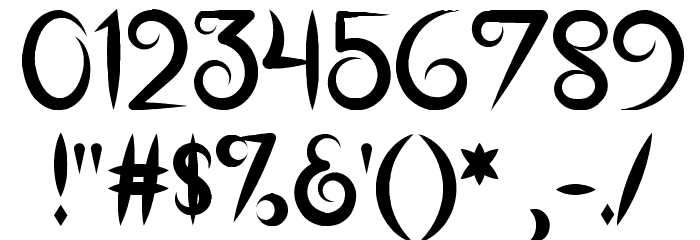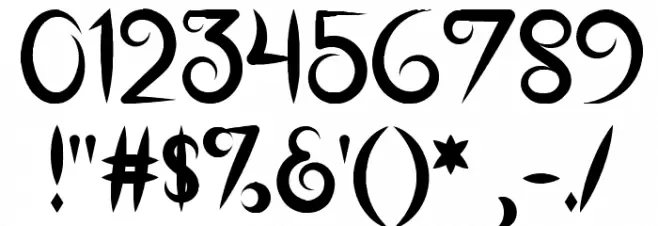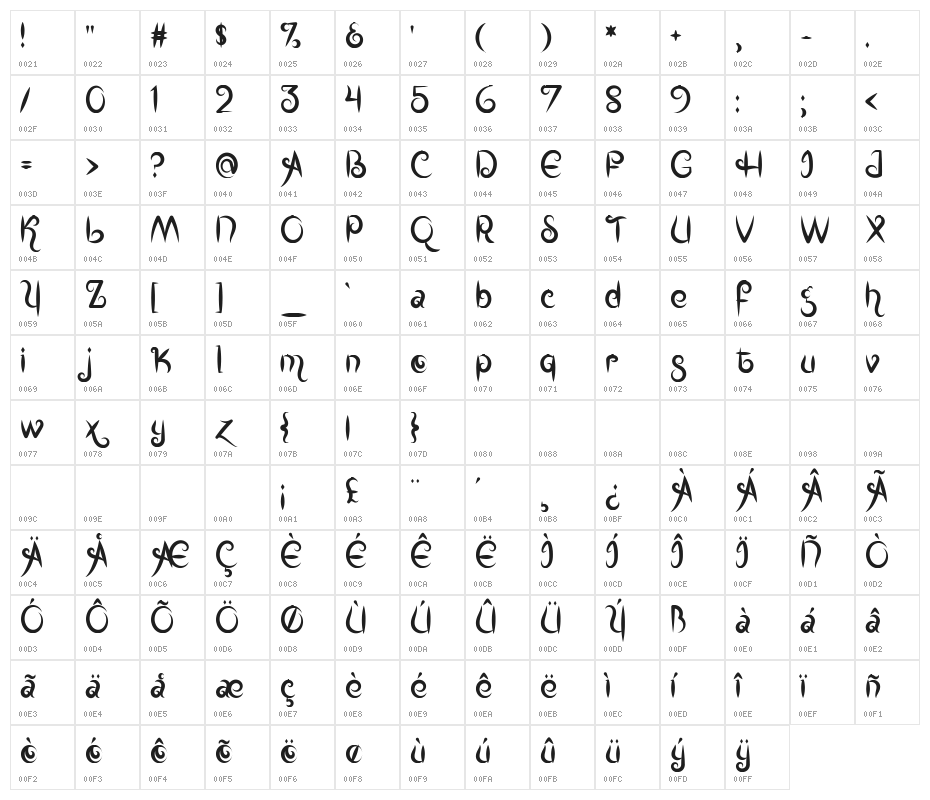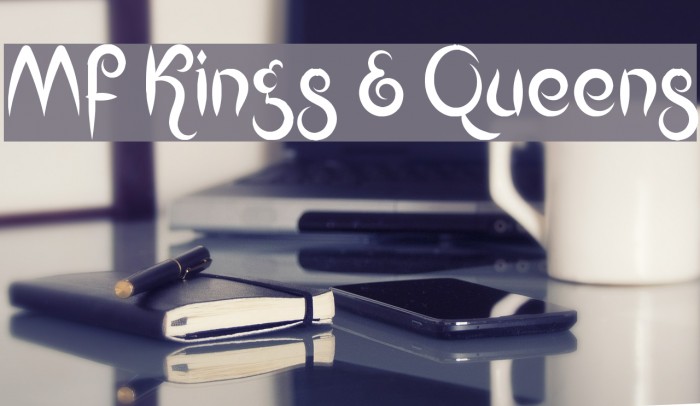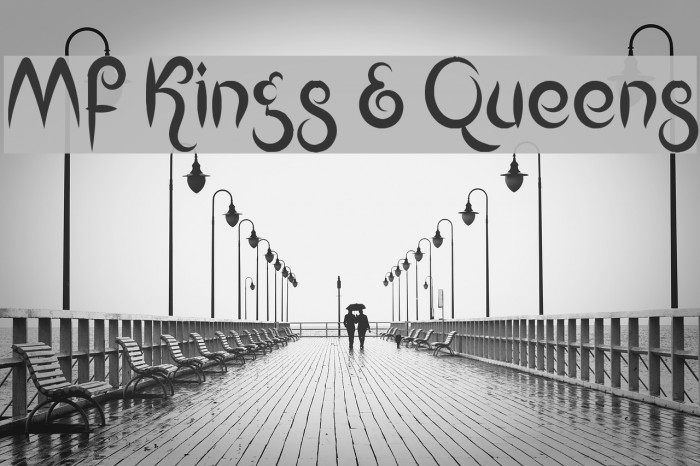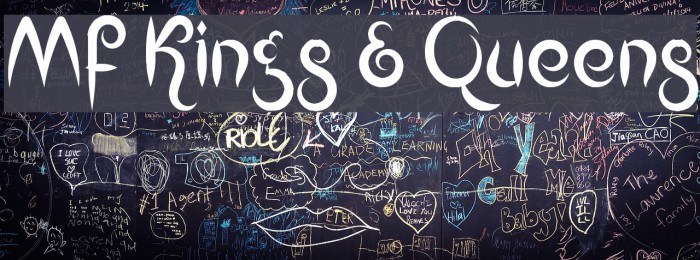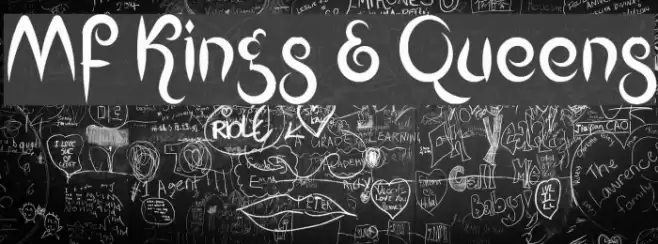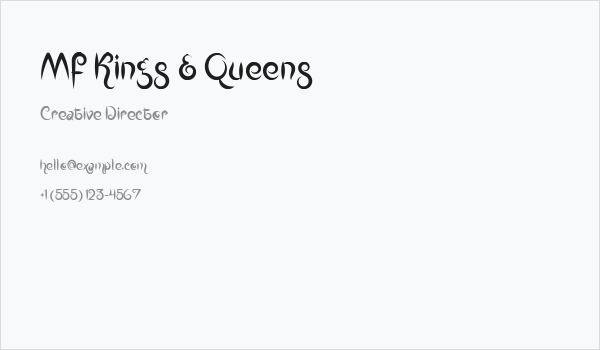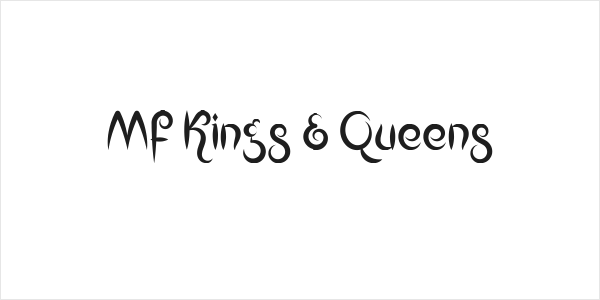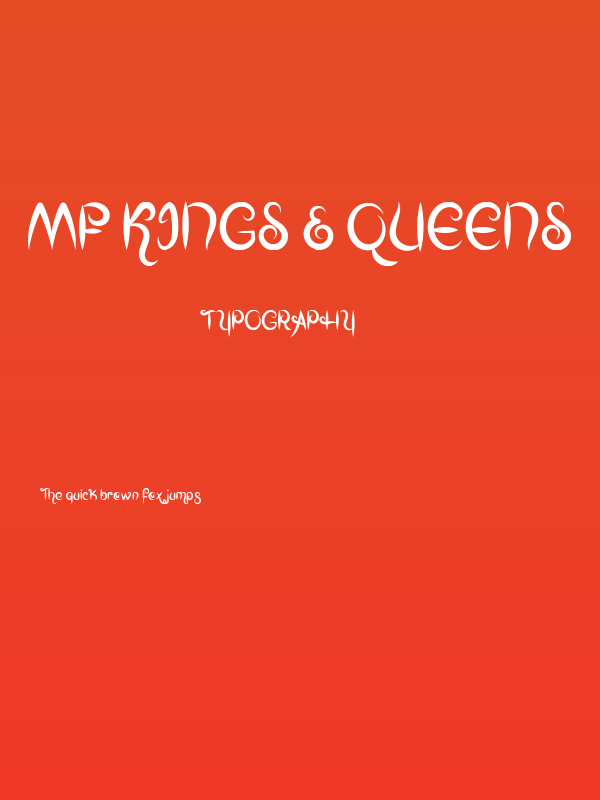
Mf Kings & Queens Font
Mf Kings & Queens Description
This font features a unique and artistic style with a medieval flair, characterized by its bold, sweeping strokes and intricate curves. The uppercase letters are particularly ornate, with decorative elements that give them a regal appearance. The lowercase letters maintain a consistent style, with some characters featuring distinctive loops and swirls. The numbers are bold and maintain the same decorative style, making them stand out. Special characters are creatively designed, adding to the overall aesthetic. This font is ideal for projects that require a touch of elegance and historical charm.